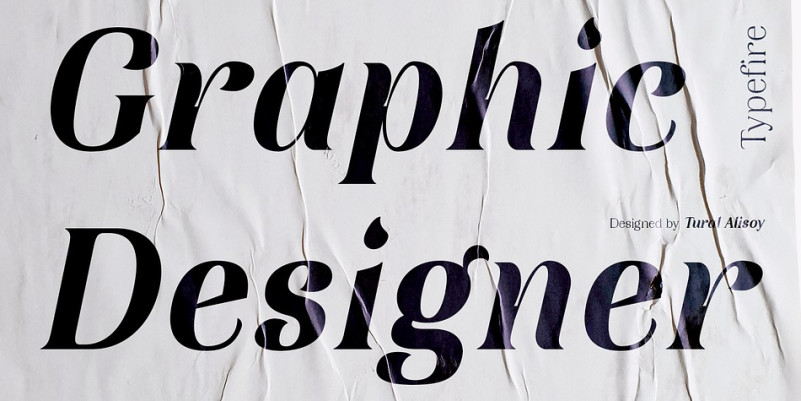
TA Typefire Font
Typefire Serif font will be known as TA Typefire from now on. Additionally, Cyrillic, Caucasian Albanian scripts and some glyphs were added. I made some slight modifications to letters. I hope you like it. Much love!
TA Typefire is perfectly suited for editorial design, branding, magazines, logos, headings and more.